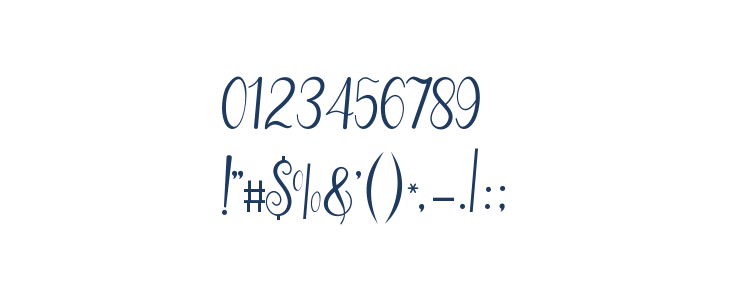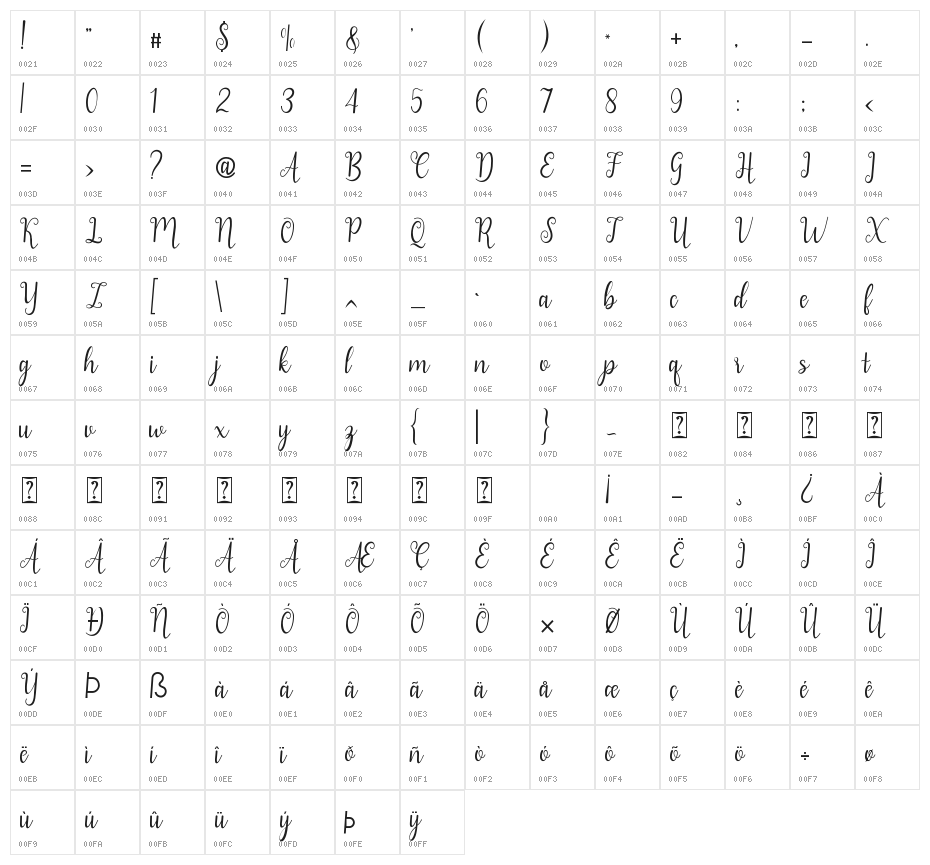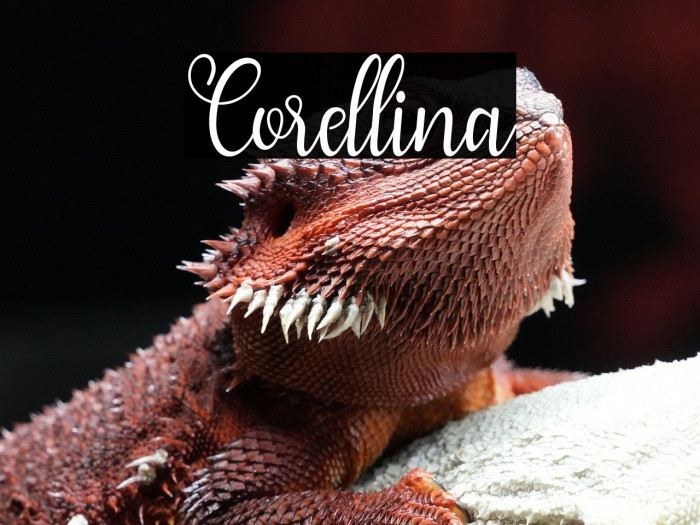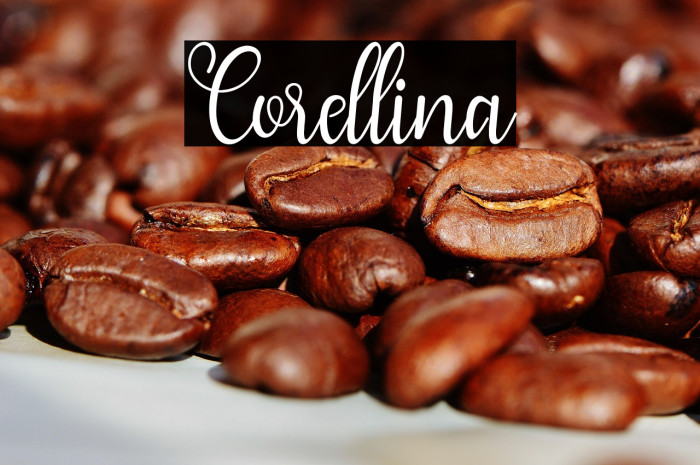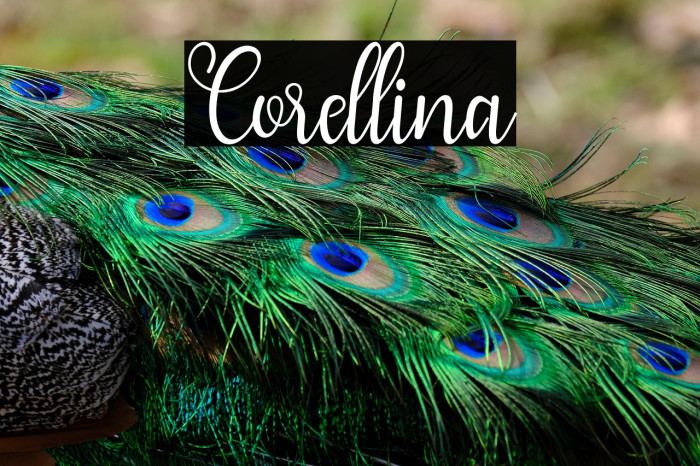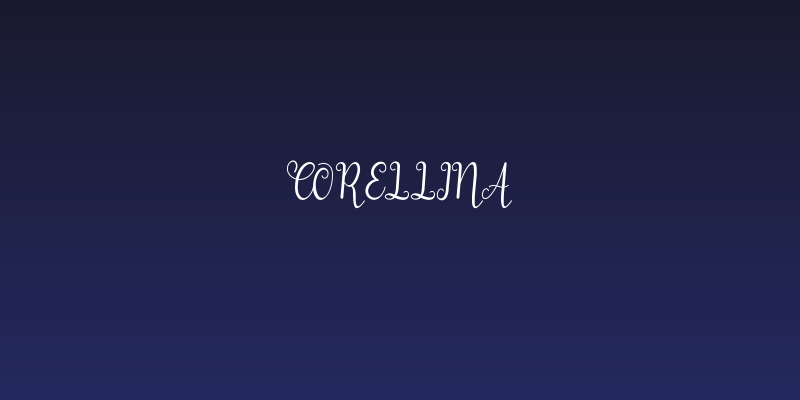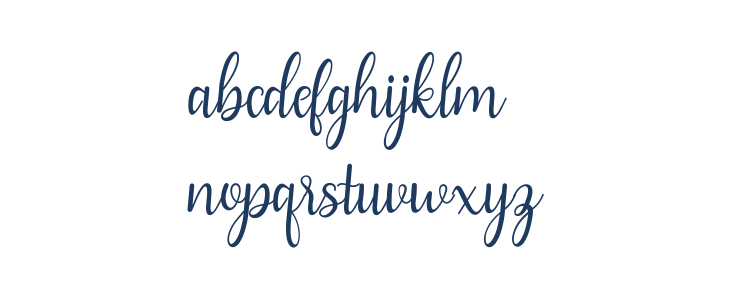
Corellina Font
Corellina Description
This font features an elegant and flowing script style, characterized by its smooth curves and graceful loops. The uppercase letters are ornate, with distinctive flourishes that add a touch of sophistication. The lowercase letters maintain a consistent flow, enhancing readability while preserving the decorative essence. Numbers are clear and complement the overall style, making them suitable for various applications. Special characters are thoughtfully designed, integrating seamlessly with the rest of the font. This typeface exudes a sense of elegance and charm, making it ideal for creative and formal uses.
| Overall Style | Elegant, Decorative |
| Proposed Projects | Ideal for wedding invitations, greeting cards, branding, and elegant logos. |